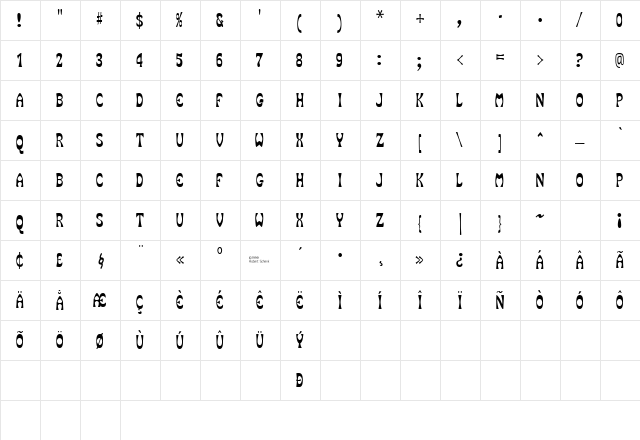
SmokeHaus Regular
Design Context for SmokeHaus Typeface
SmokeHaus takes a measured approach to typography — its balanced proportions and neutral character make it a reliable workhorse for both digital and print work.